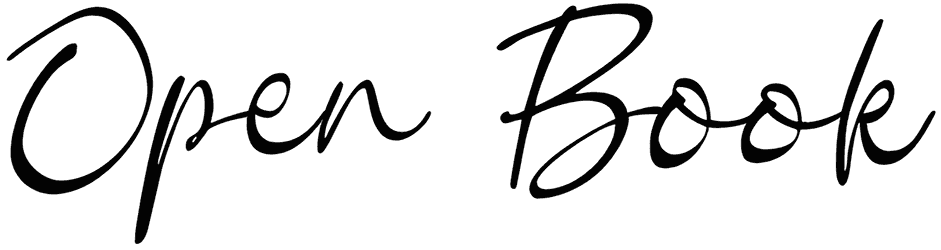
Open Book Font
Open Book is a gorgeous, handwritten script font that you may use to give your designs a more casual air. Open Book will convey the right feeling for your wedding invitation, personal blog, or handwritten message with it…
Open Book is a gorgeous, handwritten script font that you may use to give your designs a more casual air. Open Book will convey the right feeling for your wedding invitation, personal blog, or handwritten message with its sophisticated but unreadable look. Make sure to grab a copy of Open Book from RB’s extensive handwritten font store to inject warmth and character into your design projects.